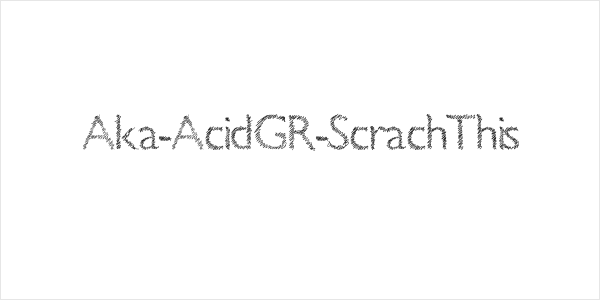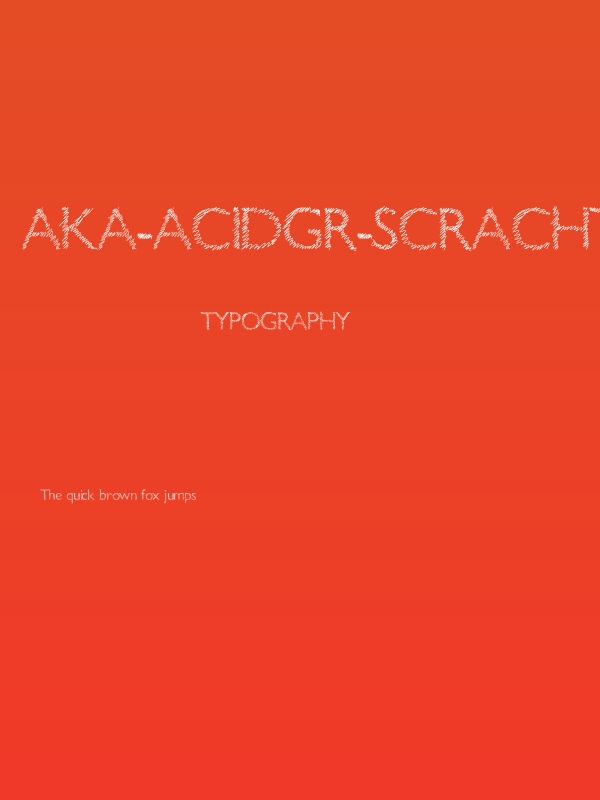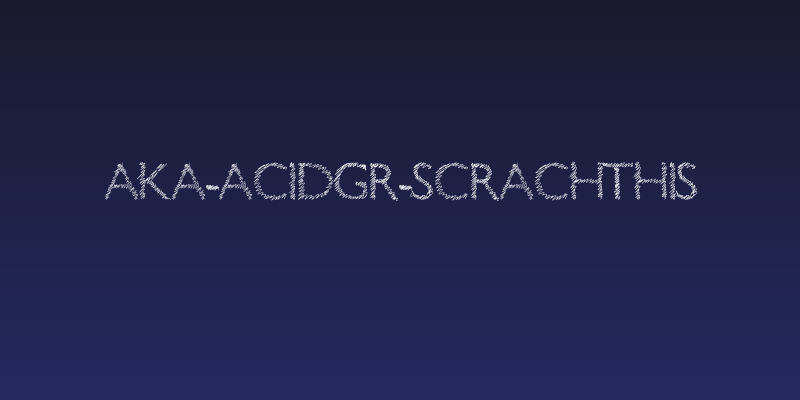
Aka-AcidGR-ScrachThis Font
Aka-AcidGR-ScrachThis Description
This font features a dynamic and edgy design with a scratchy, hand-drawn appearance. Each character is filled with irregular, jagged lines that create a sense of movement and energy. The uppercase and lowercase letters maintain a consistent style, with a slightly chaotic yet intentional look. Numbers and special characters follow the same aesthetic, making the font suitable for projects that require a bold and unconventional style. The overall texture gives it a raw, artistic feel, perfect for grabbing attention.
| Proposed Projects | Ideal for album covers, graffiti art, edgy posters, and creative branding projects. |